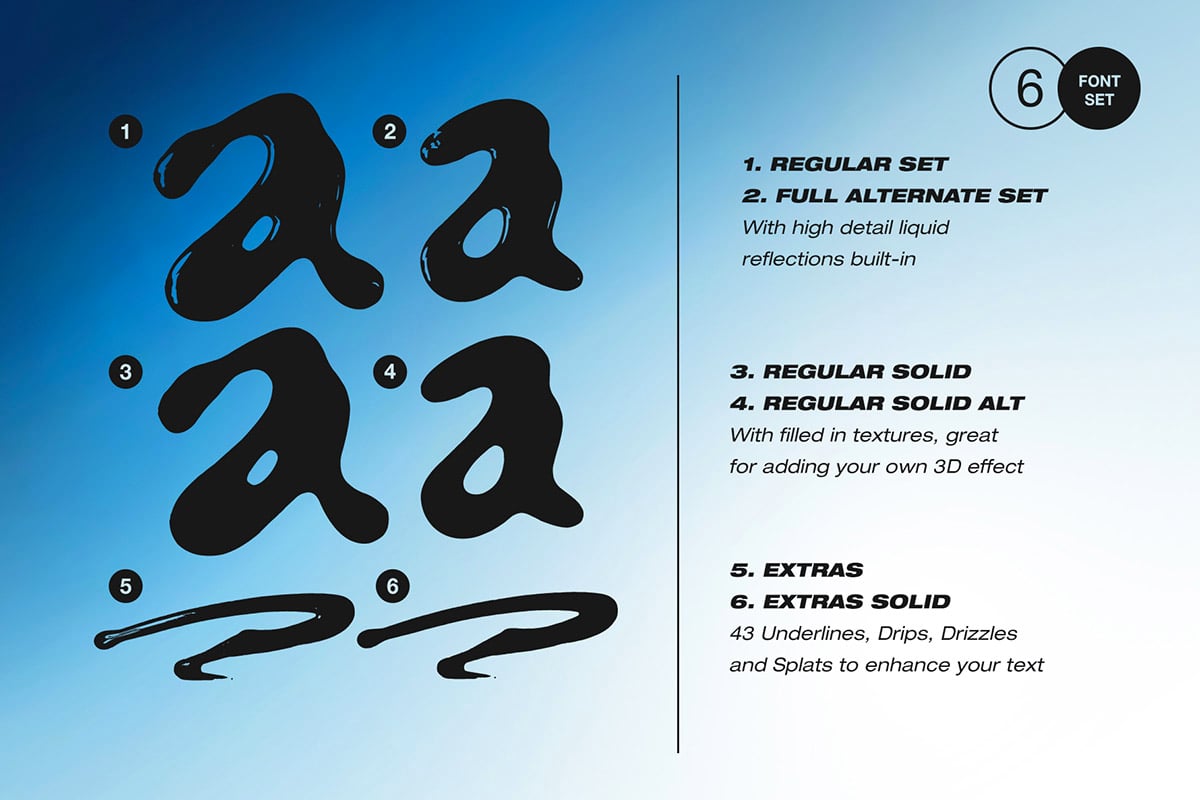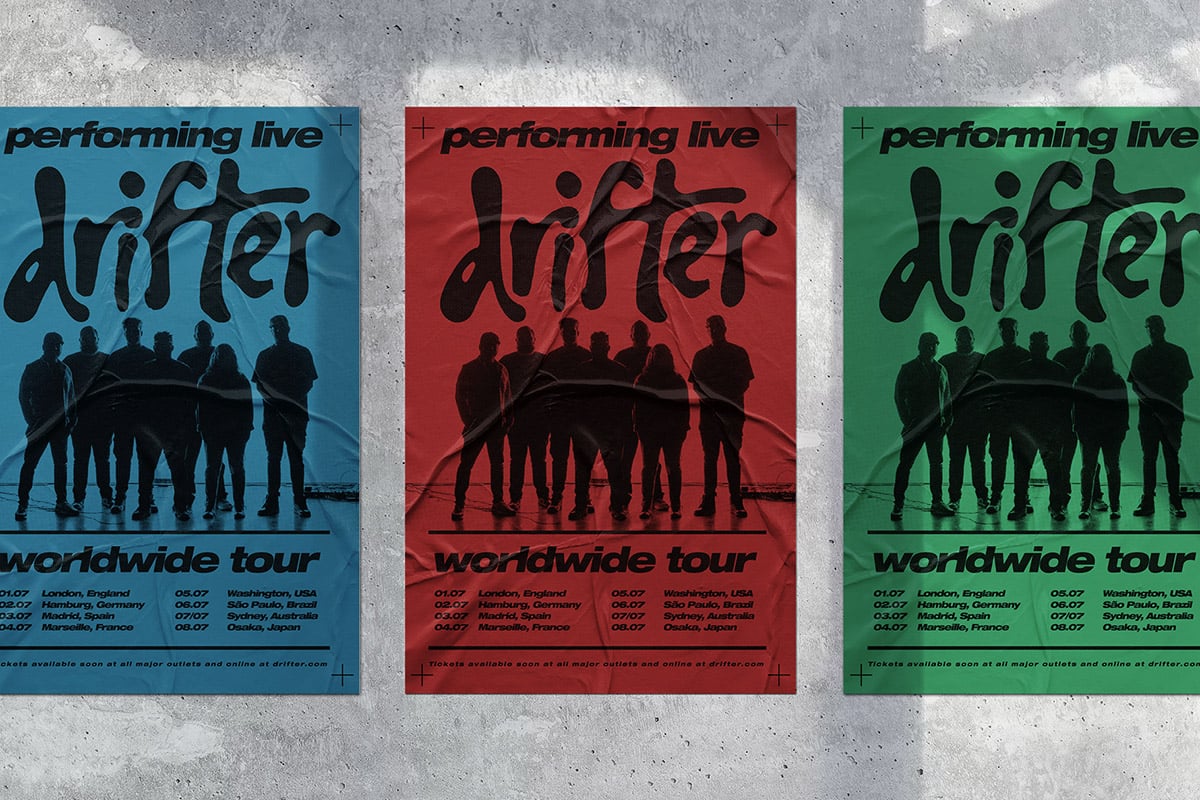
Dripdrop Liquid Font Set Font
Dripdrop Liquid Font Set Font is a versatile typeface ideal for various projects, including logos, branding, posters, blog headers, advertisements. The free version includes a full set of uppercase and lowercase letters, available in OTF format.
Dripdrop Alt Solid